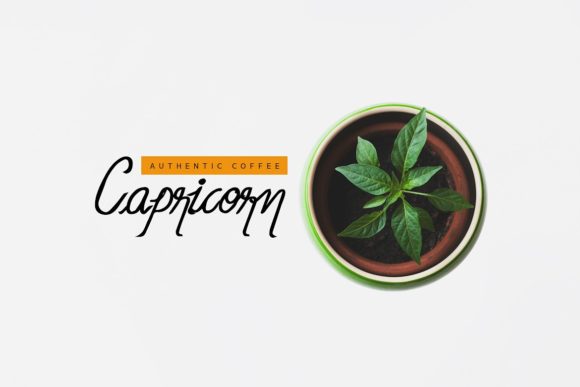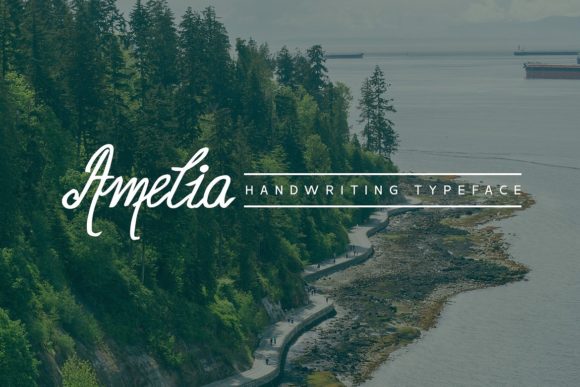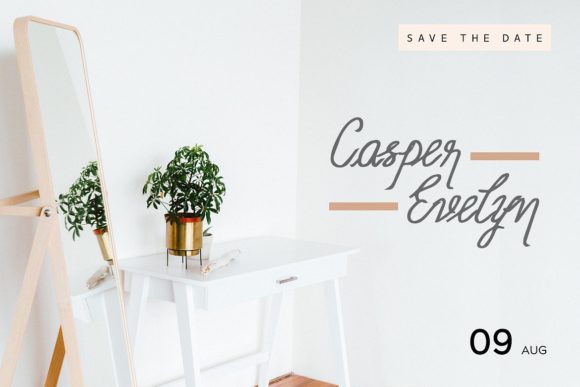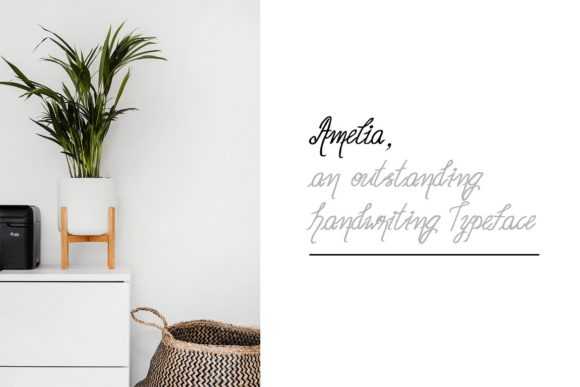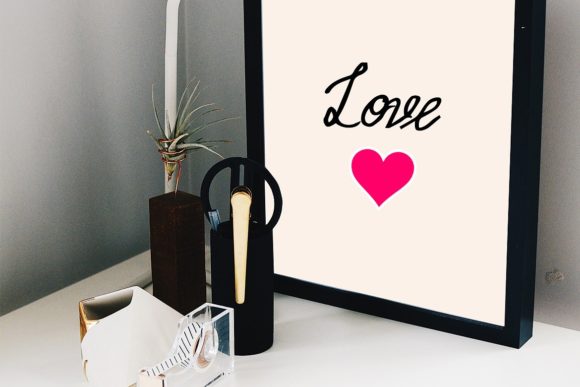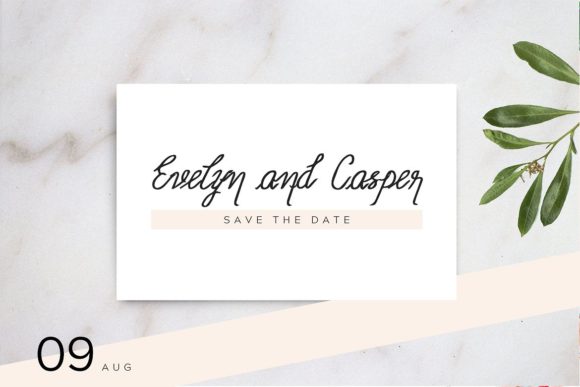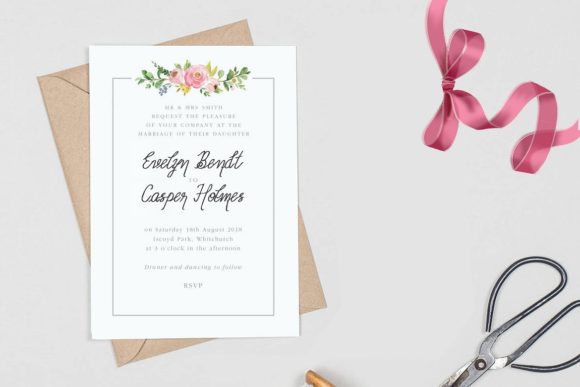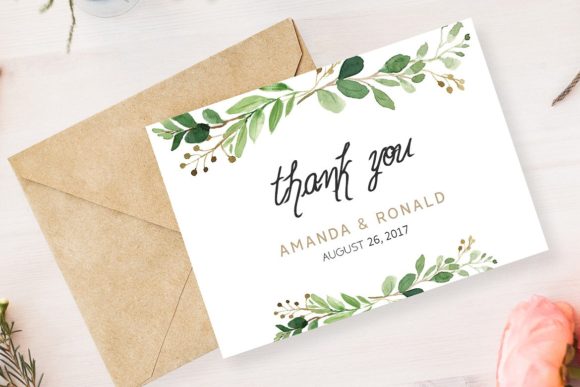
Amelia Font
About Amelia Font
The Amelia is a beautiful handwritten font. It has a simple layout with smooth texture that makes it perfect for all types of web and printing techniques. You can do embroidery, laser cut, gold foil etc.